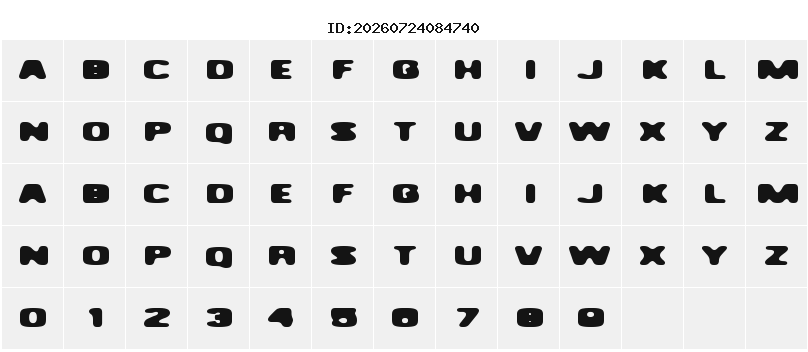
Existence Preview
• Font Name: Existence
• Font ID: Existence:Version 1.00
• Full Font Name: Existence
• Version: Version 1.00 June 10, 2014, initial release
• PostScript Name: Existence
• Character Count: 648
• Designer: junkohanhero
• Description: This font was created using Font Creator 5.0 from High-Logic.com
About Existence.ttf
Existence.ttf is a modern, elegant sans-serif font designed for ultimate readability and visual harmony. Perfect for branding, headlines, web design, and print materials.